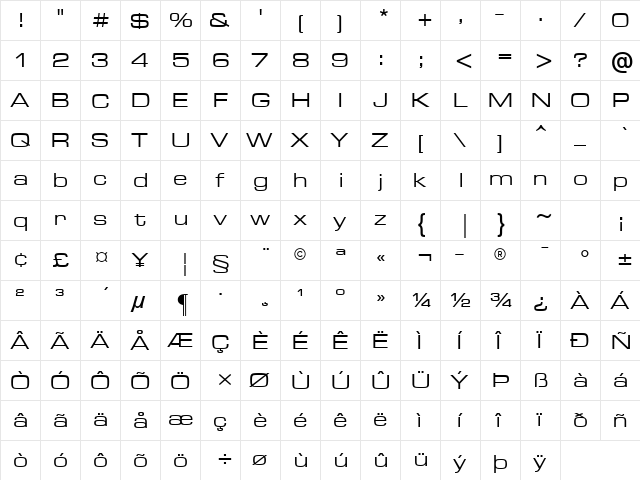
Microstyle Extended ATT Regular
Design Context for Microstyle Extended ATT Typeface
Microstyle Extended ATT is a composed and adaptable typeface that performs quietly and consistently across a wide range of design contexts.